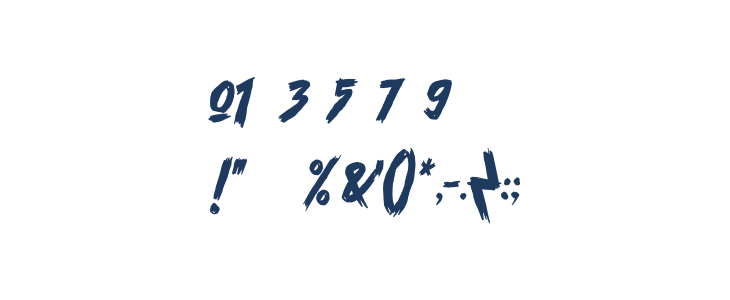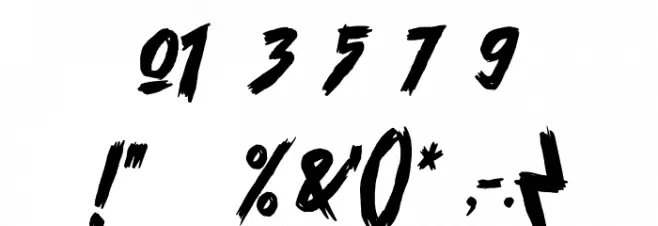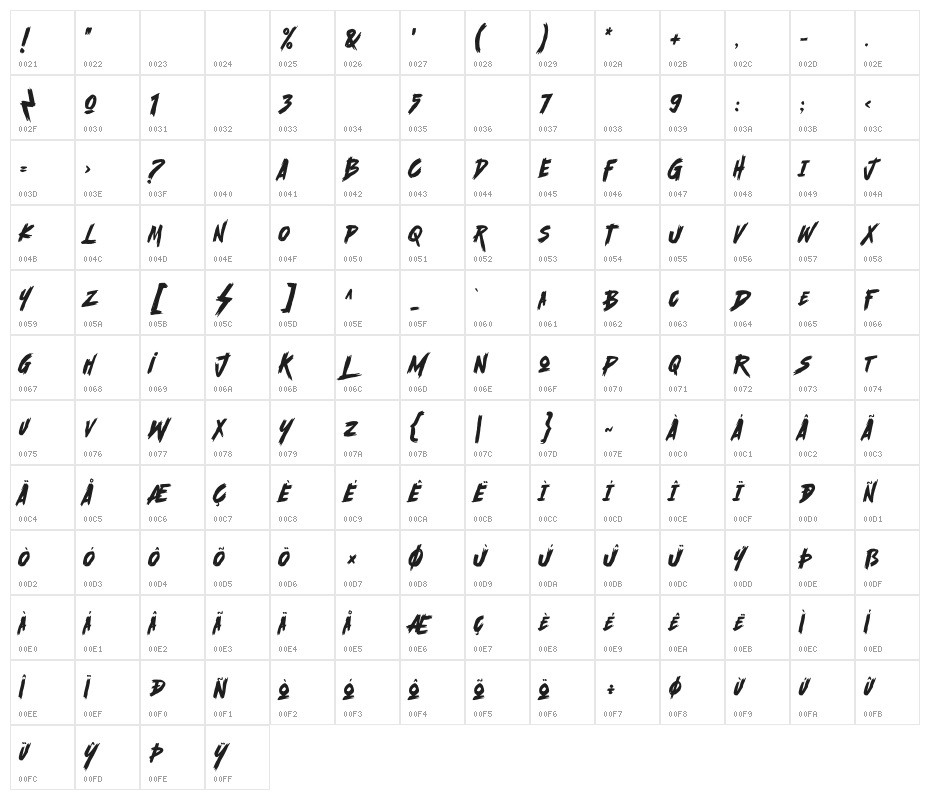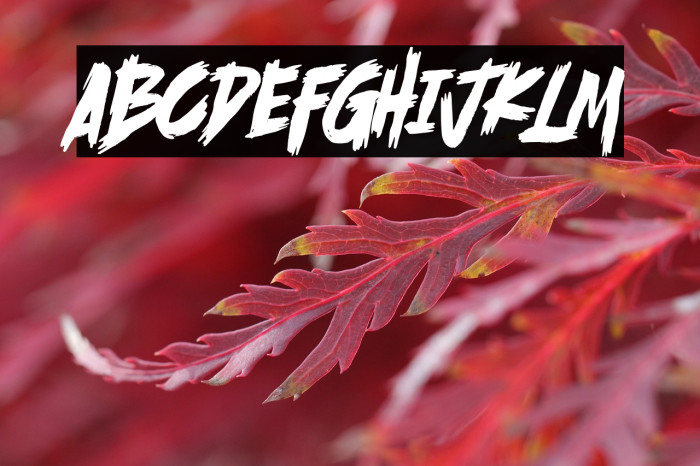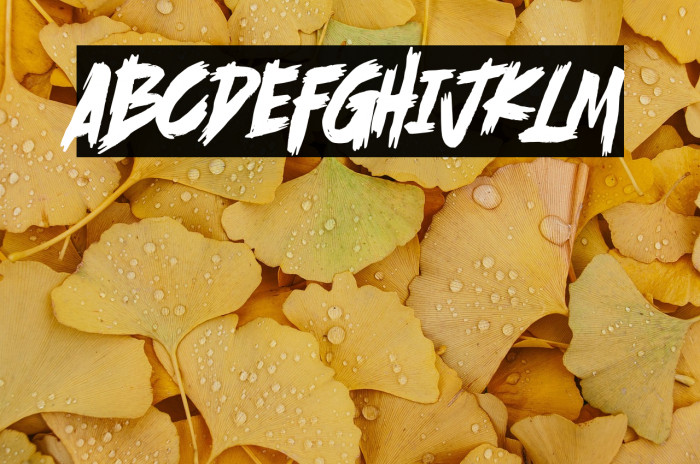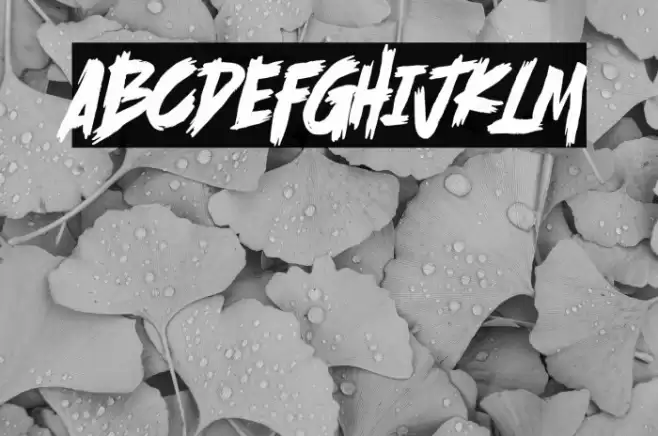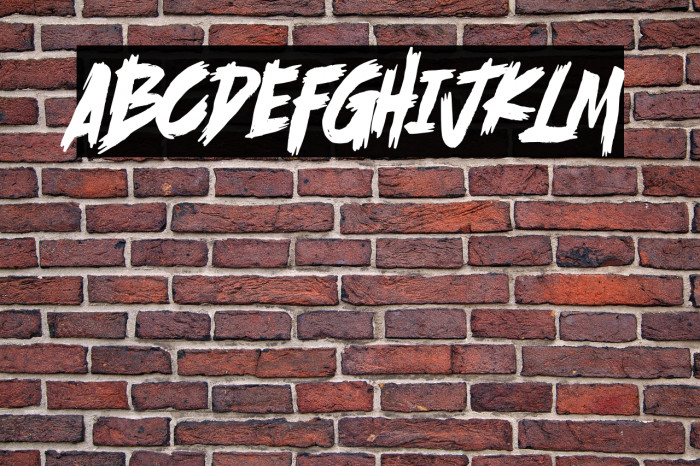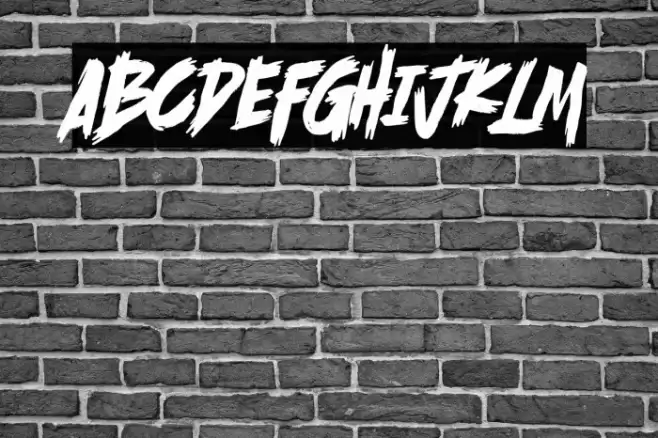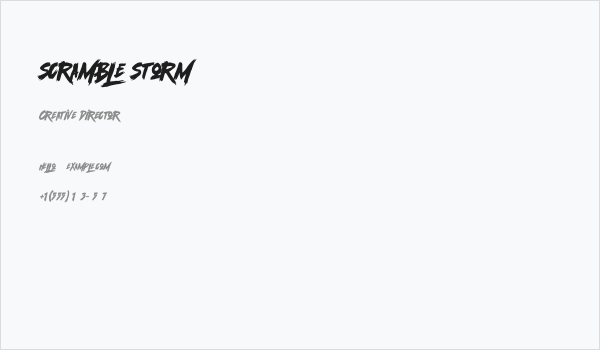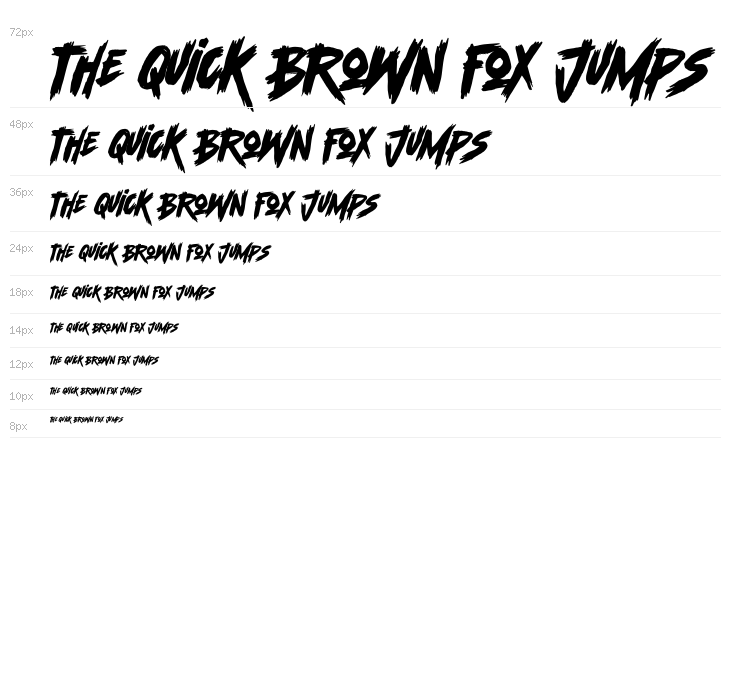
Scramble Storm Font
Scramble Storm Description
This font features a bold, brush-like style with a dynamic and energetic appearance. The characters are designed with sharp, angular strokes that give a sense of movement and intensity. The uppercase and lowercase letters maintain a consistent style, with slightly exaggerated serifs and a rough, textured finish that adds to the overall rugged aesthetic. The numbers and special characters follow the same design principles, ensuring a cohesive look across all glyphs. This font is ideal for projects that require a strong, impactful visual presence.